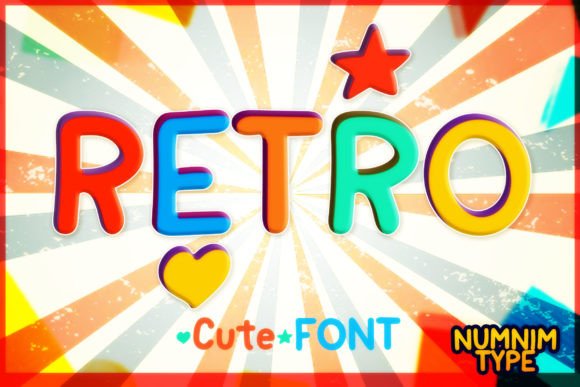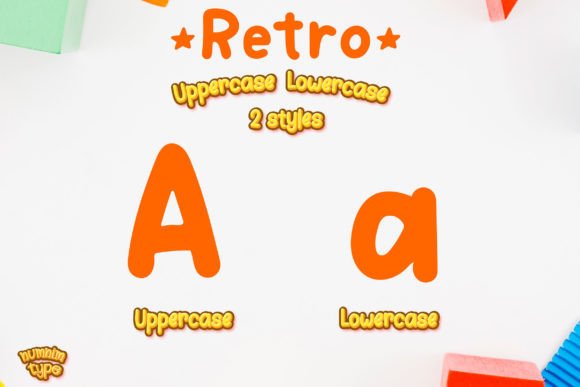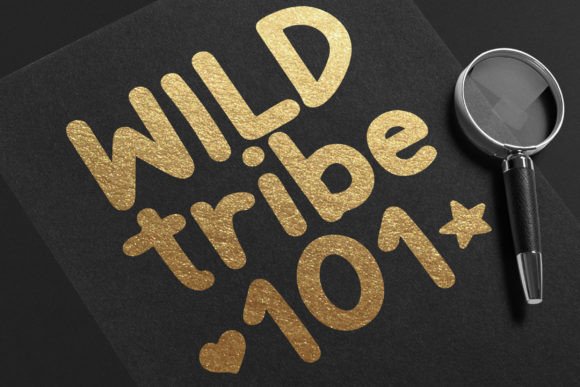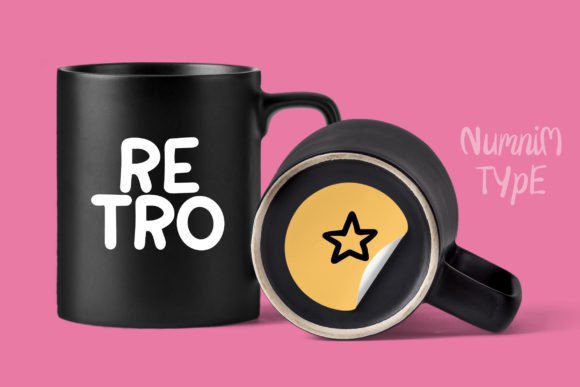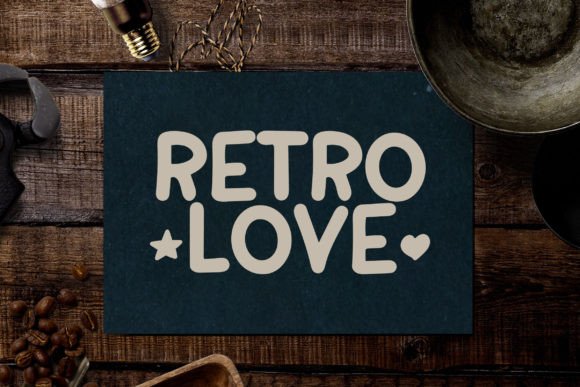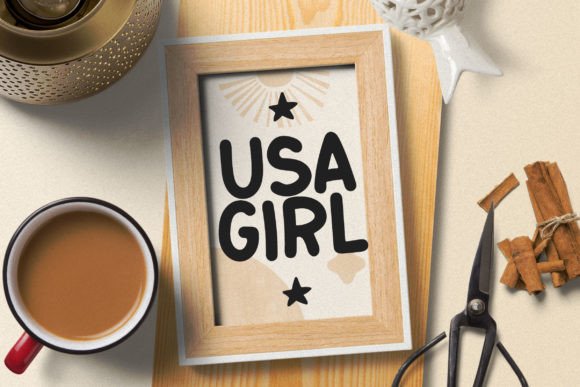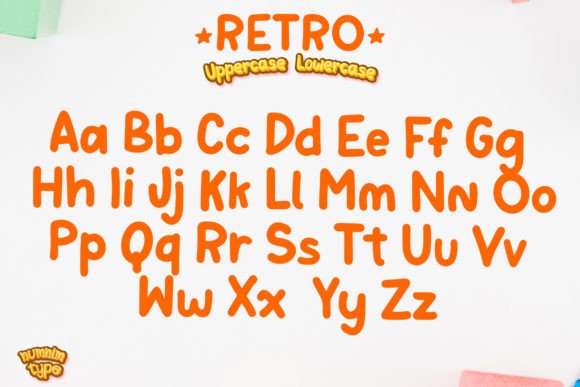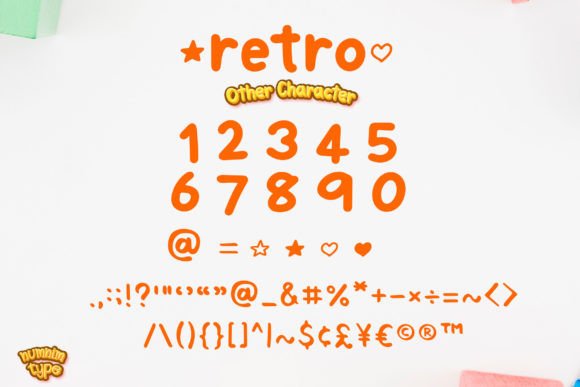
Retro Font
About Retro Font
Introducing Retro, a cute and uniquely crafted handwritten font designed to bring a sense of fun and playfulness to your creative projects. With its charming and playful characters, Retro is the perfect font for a variety of applications, including stickers, mugs, t-shirts, ornaments, kids’ event cards, and more!
The fun and playful nature of Retro is expressed through its uniquely crafted characters, making it suitable for projects that aim to evoke a sense of joy and whimsy. Its handwritten style adds a personal touch, creating a delightful and friendly atmosphere.
Imagine Retro adorning stickers that bring smiles to people’s faces or being featured on mugs and t-shirts that radiate a carefree and happy vibe. Picture it enhancing the charm of kids’ event cards, making each invitation uniquely delightful.
Retro goes beyond just being a font; it becomes a creative asset for infusing a sense of cuteness and uniqueness into your designs. The PUA encoding feature ensures easy access to all glyphs and swashes, providing you with creative freedom to customize your projects.
Add Retro to your font collection and discover how it effortlessly becomes your go-to choice for projects that require a cute and playful touch. Let its fun and uniquely crafted handwritten style bring joy and character to your creative endeavors!